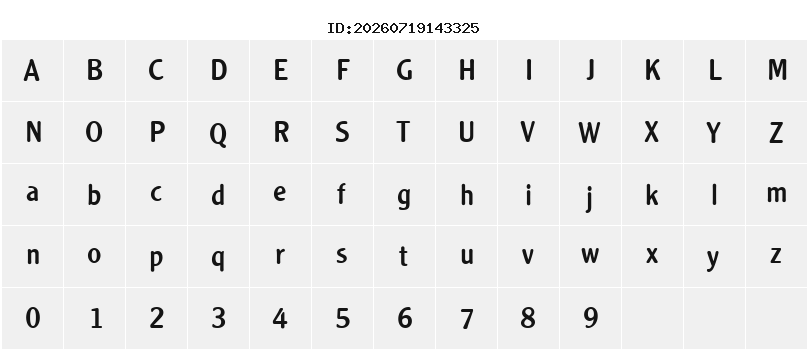
ClearfaceGotTRegRo1 Preview
• Font Name: ClearfaceGotTRegRo1
• Full Font Name: ClearfaceGotTRegRo1
• PostScript Name: ClearfaceGotT-ReguRo1
About ClearfaceGotTRegRo1.ttf
ClearfaceGotTRegRo1.ttf is a modern, elegant sans-serif font designed for ultimate readability and visual harmony. Perfect for branding, headlines, web design, and print materials.